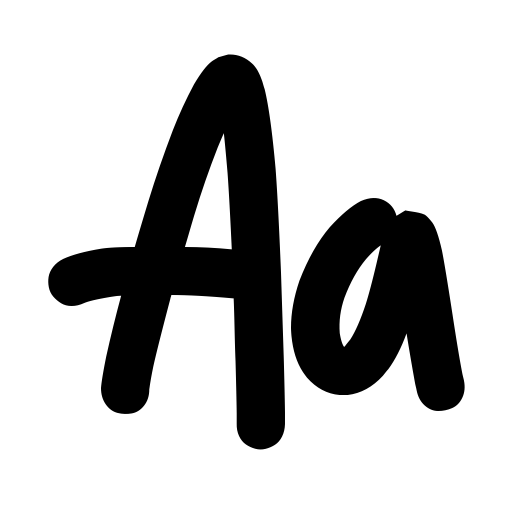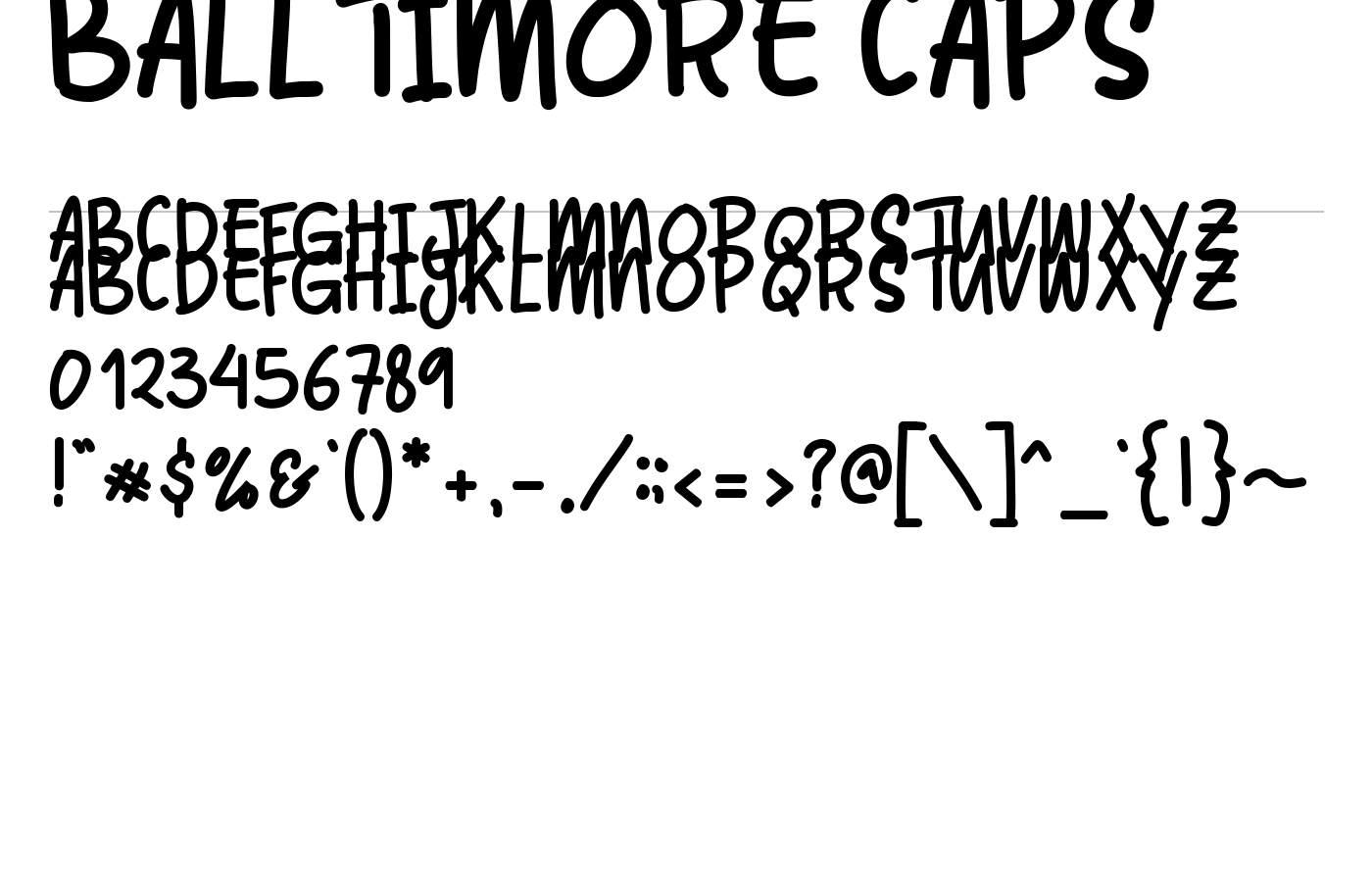
Balltimore Sans Demo is a playful, casual sans-serif font with a hand-drawn feel, featuring rounded, slightly irregular letterforms that convey warmth and friendliness. Its medium weight and generous spacing make it ideal for informal designs like children’s books, fun branding, or creative headlines where a relaxed, approachable tone is desired. This font works best in projects that aim to feel personal and inviting while maintaining clear readability.
Balltimore Sans Demo Font